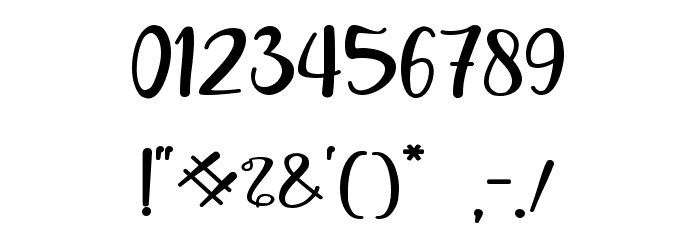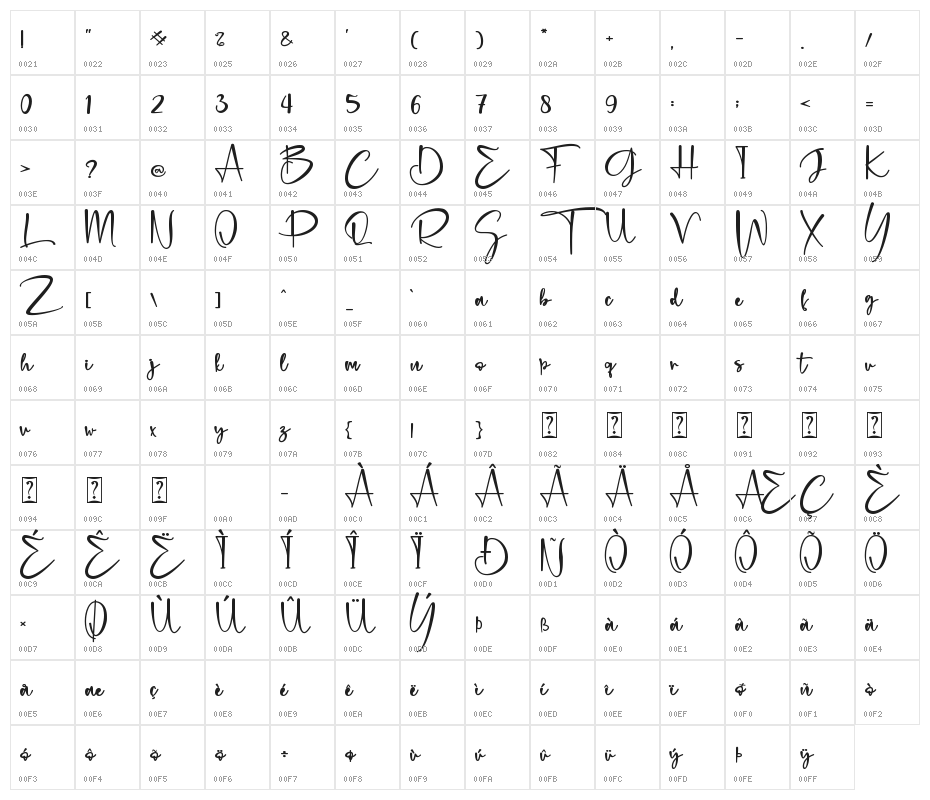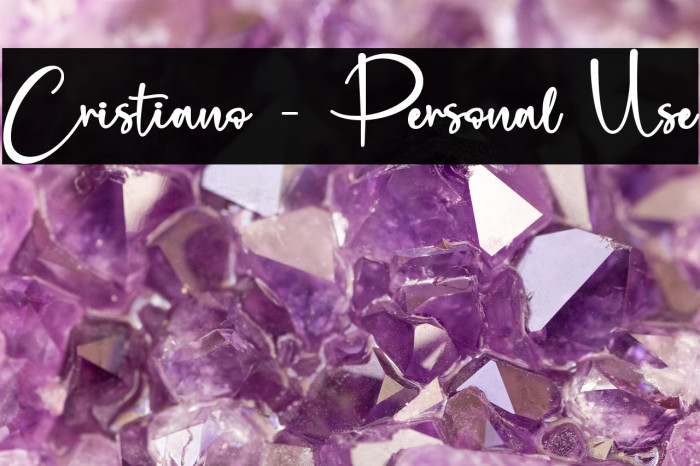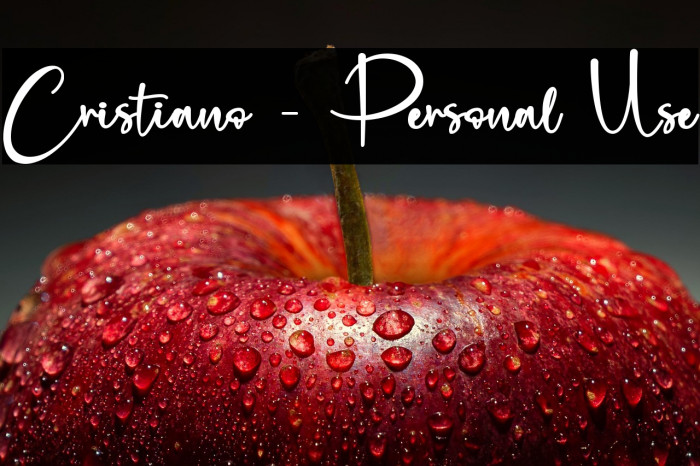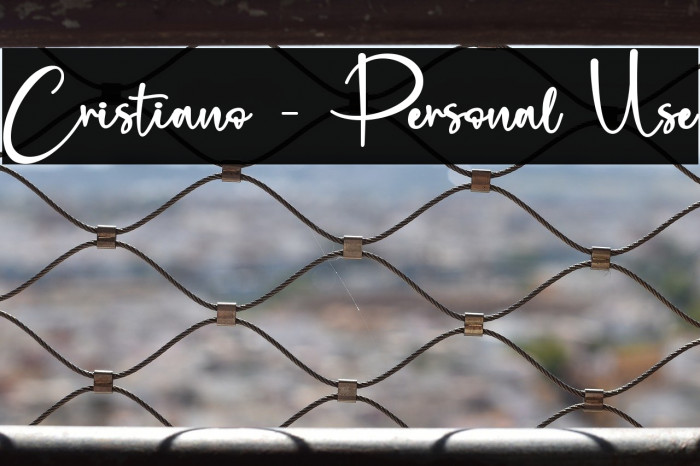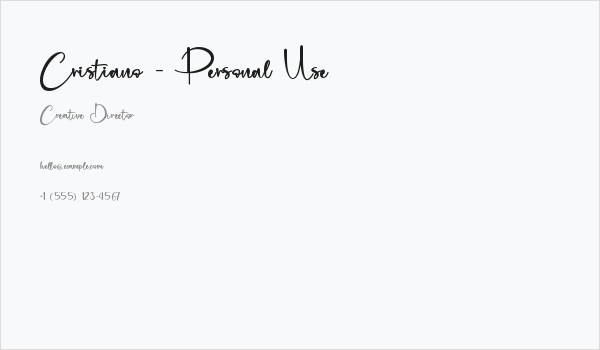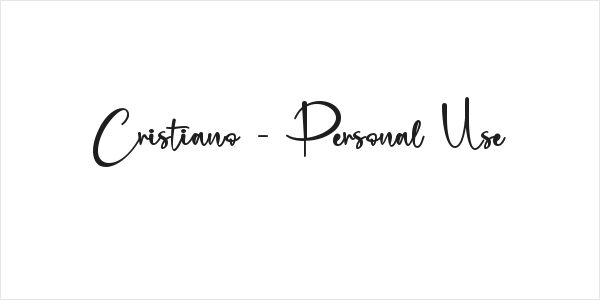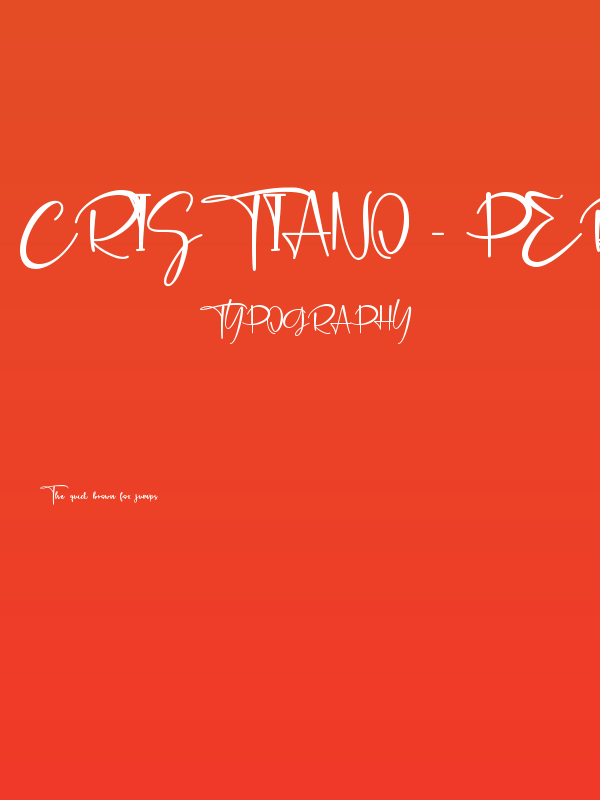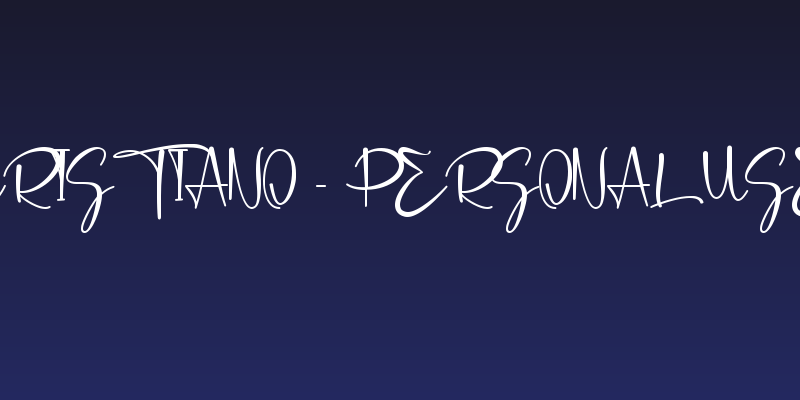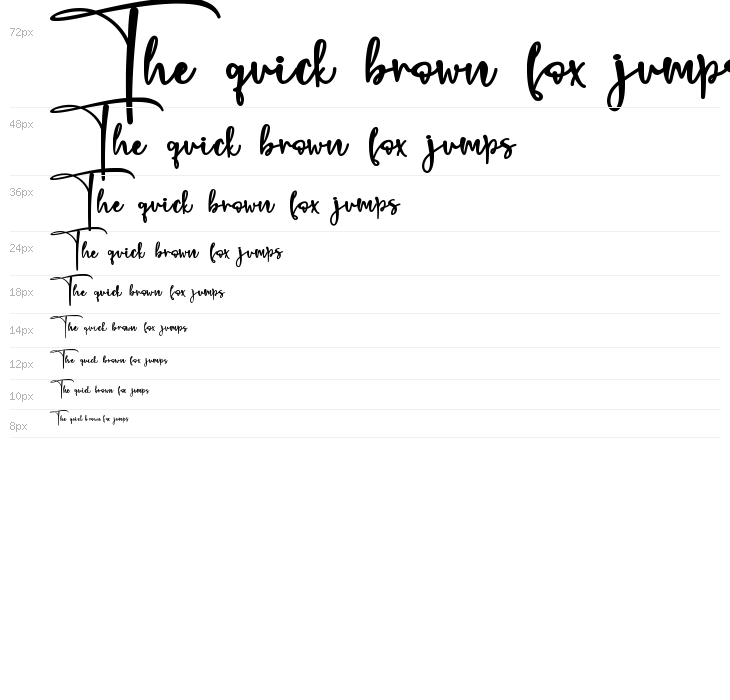
Cristiano - Personal Use Font
This font features a dynamic and expressive handwritten style, characterized by its fluid and flowing letterforms. The uppercase letters exhibit a playful and artistic flair, with varying stroke widths that add a sense of movement and energy. The lowercase letters maintain a cohesive and harmonious appearance, complementing the uppercase with their rounded and smooth curves. The numerals are bold and clear, ensuring readability while maintaining the overall aesthetic. Special characters are thoughtfully designed to match the whimsical nature of the font, making it versatile for creative projects. The font's unique style makes it ideal for adding a personal touch to designs, evoking a sense of creativity and individuality.
| Use Case | Logos, Headlines, Creative projects |
| Proposed Projects | Ideal for greeting cards, invitations, branding, social media graphics, and creative projects. |